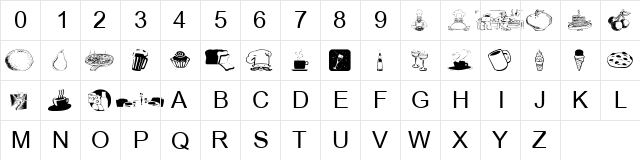
tungfont food 001 Regular
tungfont food 001 is a composed and adaptable typeface that performs quietly and consistently across a wide range of design contexts.